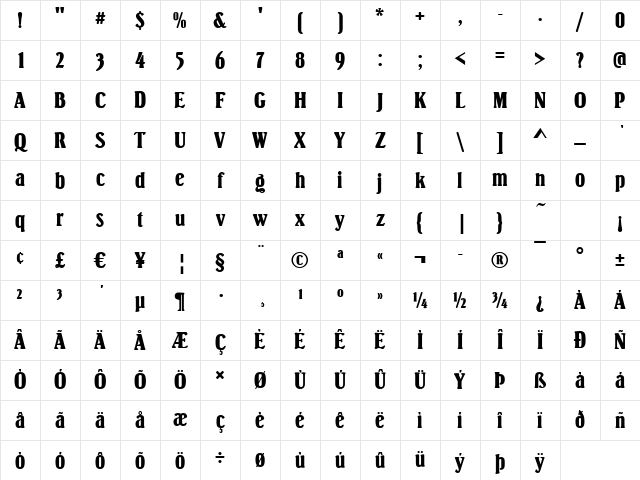
Simpson Regular Free Font
Simpson Regular
Simpson Family
Design Context for Simpson
Simpson is a composed and adaptable typeface that performs quietly and consistently across a wide range of design contexts.